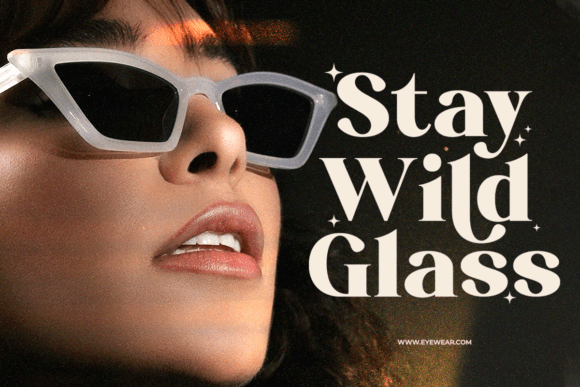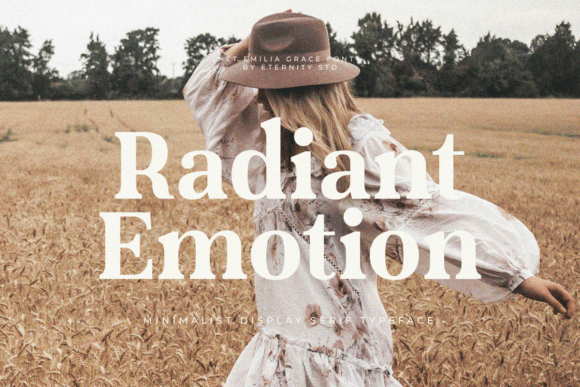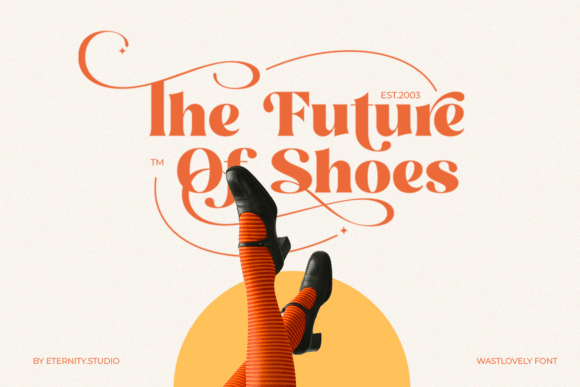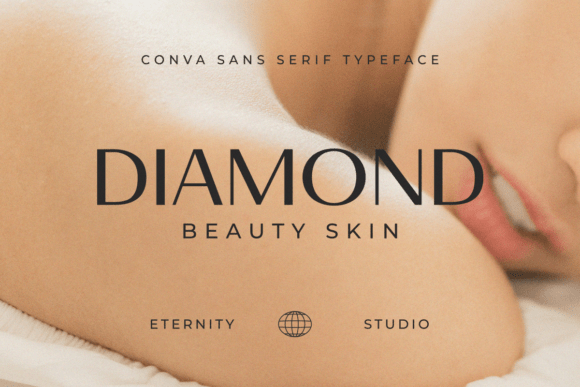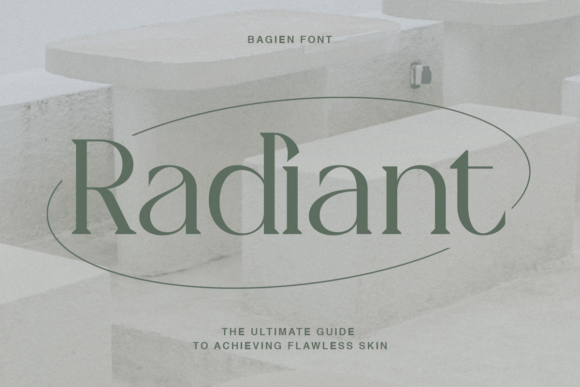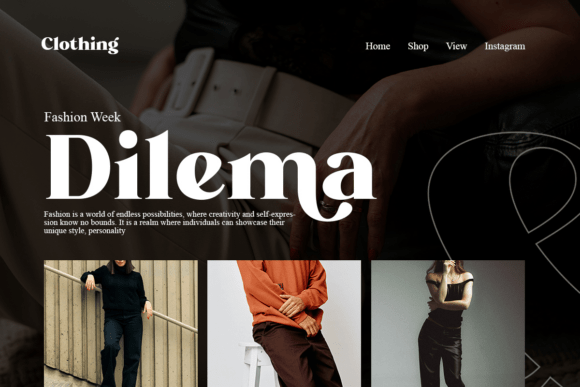
Introducing Classy Bundle Vol. I Font: Elevate Your Designs with Retro Charm and Timeless Elegance
Are you a designer, creator, or business looking for a font bundle that combines the best of both worlds – vintage retro styles and elegant, classy typography? Look no further than the Classy Bundle Vol. I Font. This comprehensive font bundle is designed to provide you with the perfect tools to create stunning designs that exude nostalgia and sophistication.
What is Classy Bundle Vol. I Font?
The Classy Bundle Vol. I Font is a carefully curated collection of fonts that brings together the charm of vintage retro styles with the elegance and refinement of classic typography. This bundle is perfect for a wide range of design applications, including branding, logos, posters, packaging, social media, and creative projects.
Key Features of Classy Bundle Vol. I Font
- Retro Display Fonts: Add a touch of nostalgia to your designs with our selection of retro display fonts. Perfect for headlines, titles, and promotional materials.
- Classy Serif & Script Fonts: Elevate your designs with our elegant serif and script fonts, ideal for body text, captions, and quotes.
- Elegant and Timeless Styles: Our font bundle features a range of elegant and timeless styles that will never go out of fashion.
Benefits for Designers, Creators, and Businesses
The Classy Bundle Vol. I Font is ideal for designers, creators, and businesses who want to add a touch of vintage charm and classy elegance to their designs. With this bundle, you’ll be able to:
- Create Stunning Designs: With our comprehensive font bundle, you’ll have everything you need to create stunning designs that capture the essence of your brand or project.
- Stand Out from the Crowd: With our unique and stylish fonts, you’ll be able to differentiate your brand or project from the competition and make a lasting impression.
Tips and Tricks for Getting the Most Out of Classy Bundle Vol. I Font
Here are a few tips and tricks to help you get the most out of the Classy Bundle Vol. I Font:
- Experiment with Different Fonts: Don’t be afraid to try out different fonts and combinations to find the perfect look for your design.
- Play with Font Sizes and Styles: Use different font sizes and styles to add depth and visual interest to your designs.
- Use Fonts Consistently: Use fonts consistently throughout your design to create a cohesive and professional look.
The Classy Bundle Vol. I Font is a must-have for designers, creators, and businesses looking to add a touch of vintage charm and classy elegance to their designs. With its comprehensive collection of retro display fonts, classy serif and script fonts, and elegant and timeless styles, this bundle has everything you need to create stunning designs with ease. So why wait? Download the Classy Bundle Vol. I Font today and start elevating your designs to the next level!